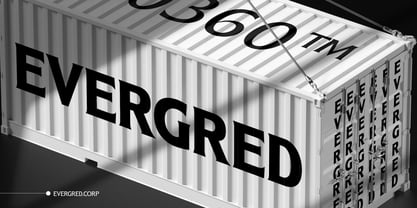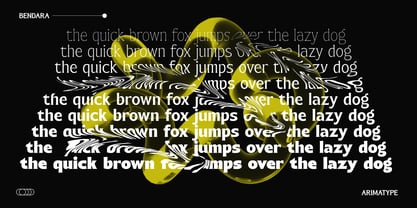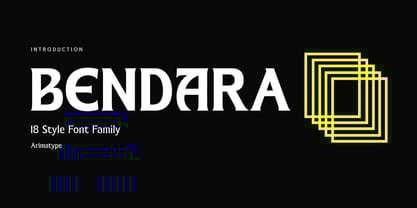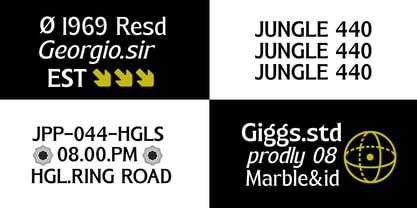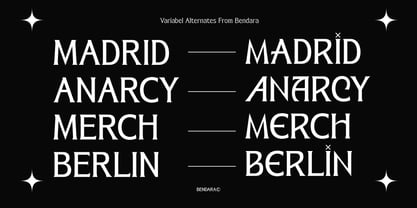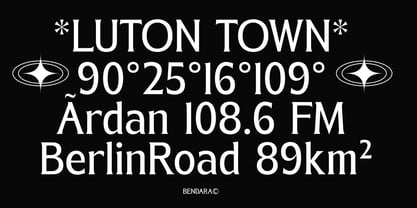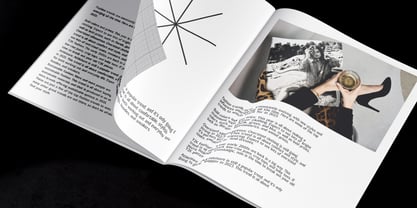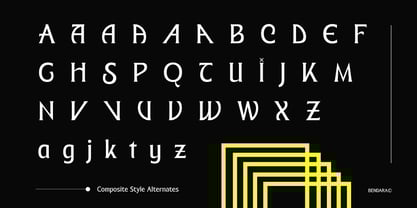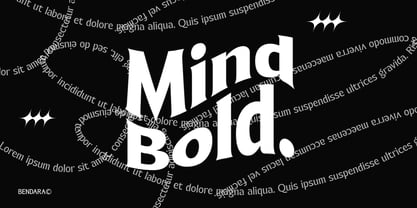
Bendara
by ArimaType
The Bendara Font Family was designed by Amri Mauludin and published by ArimaType. Bendara contains 18 styles and family package options. More about this family
Bendara is a serif font with a nearly uniform stroke thickness, blending Victorian-era elegance with a casual and contemporary touch. It strikes a balance between formality and flexibility, embodying a look that is both sophisticated and relaxed, much like wearing a formal suit paired with jeans. With its unique and adaptable character, Bendara establishes a strong visual identity, making it suitable for both formal and casual design needs.
By combining classic aesthetics with modern versatility, Bendara delivers a bold yet approachable presence. Its versatility makes it an excellent choice for projects that require a refined, recognizable typeface that remains relevant across various design contexts.